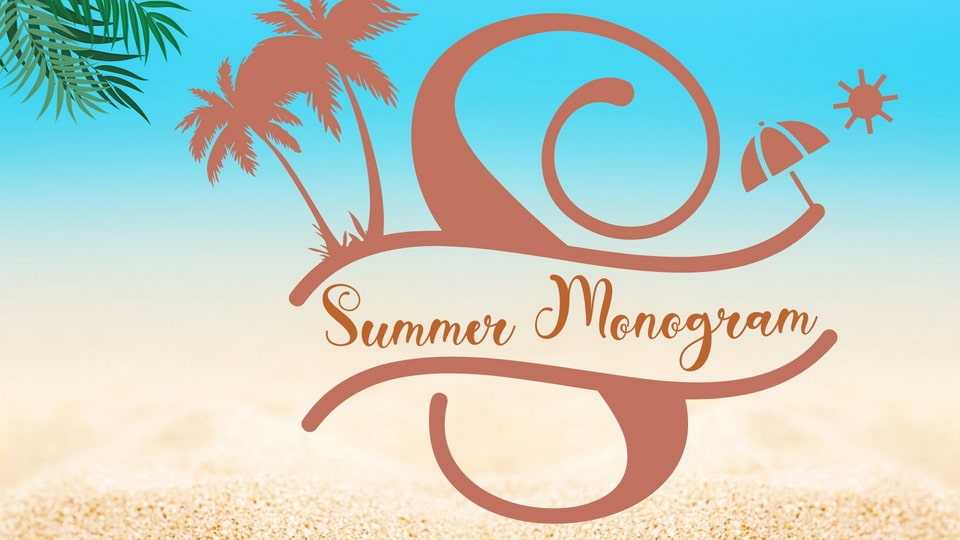
Download Summer Monogram font, a combination of script and monograms with coconut trees and beach decorations in the monogram letters. Summer Monogram font is very unique and beautiful, so it is perfect for summer moments.